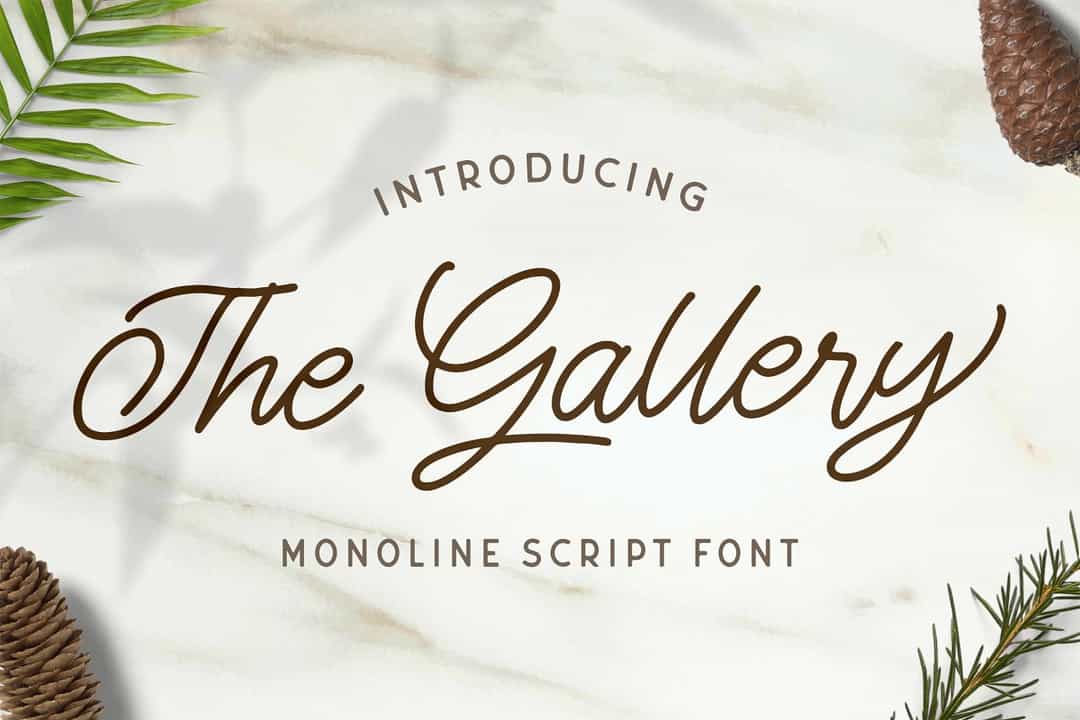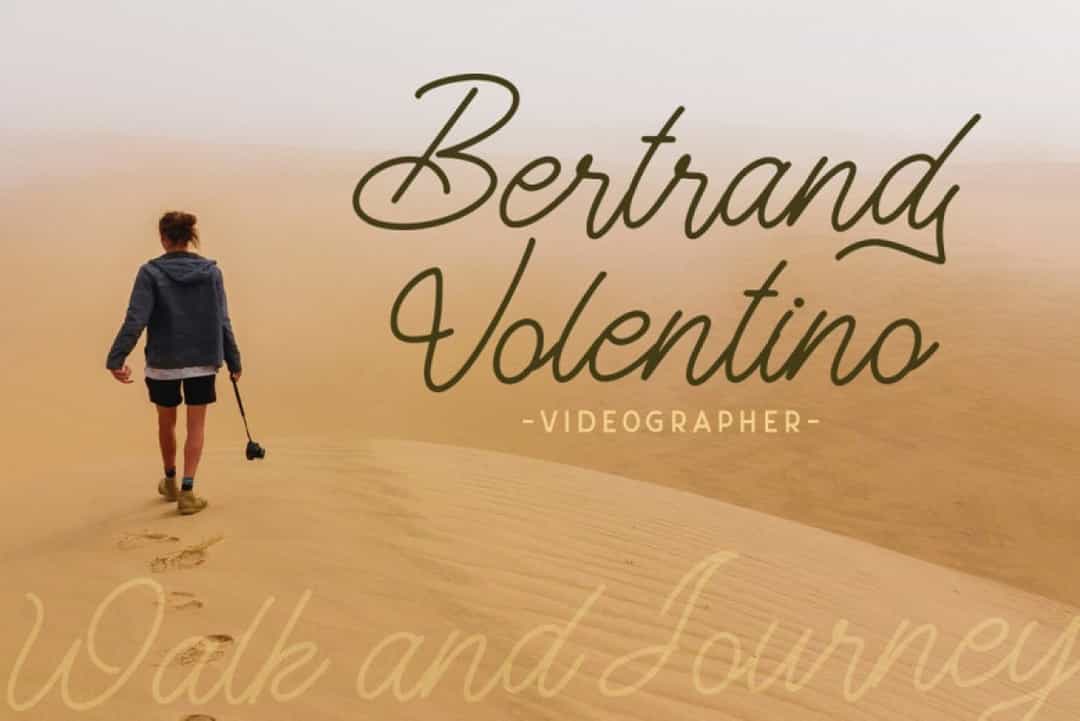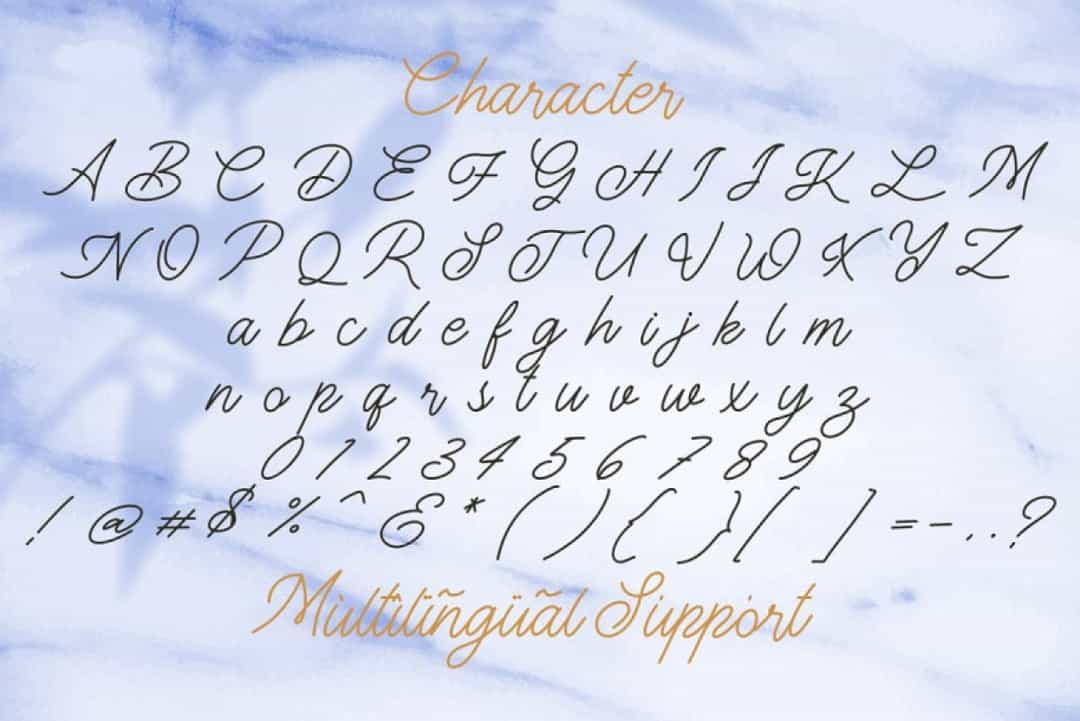
The Gallery is a brand new and modern monoline script font that has a handwritten style and script style. the font appear elegant, natural and chic and is perfect for all projects that require handwriting.